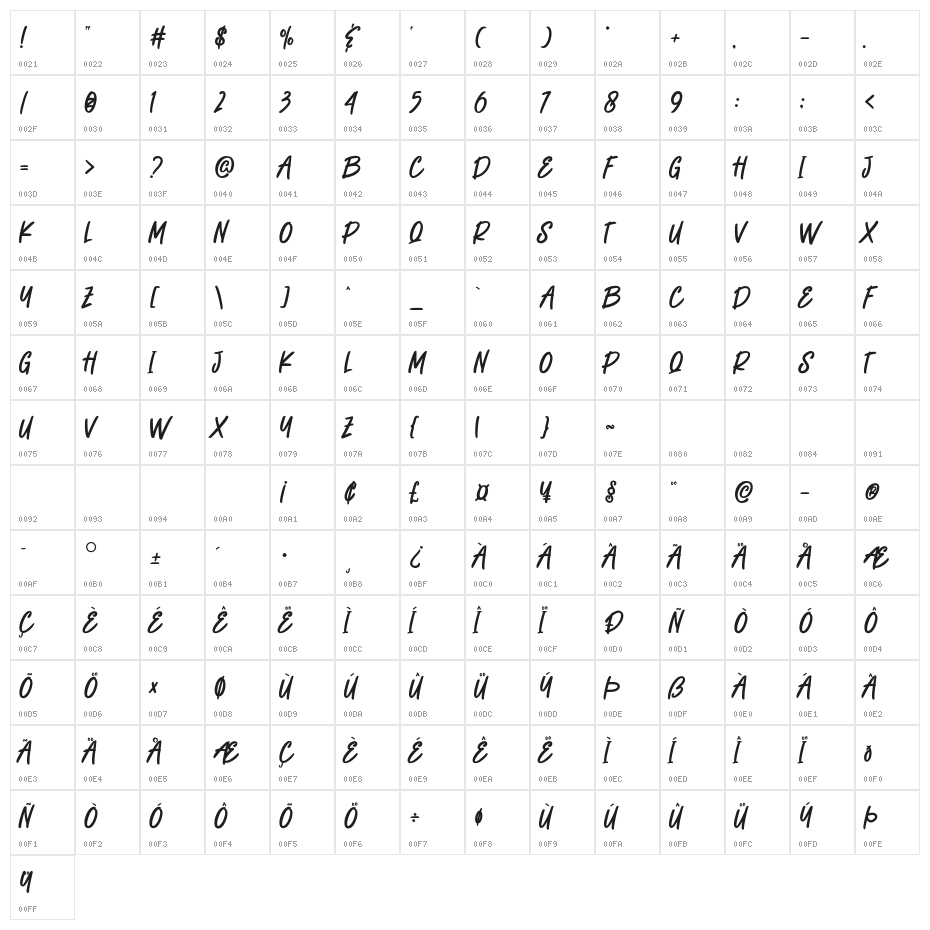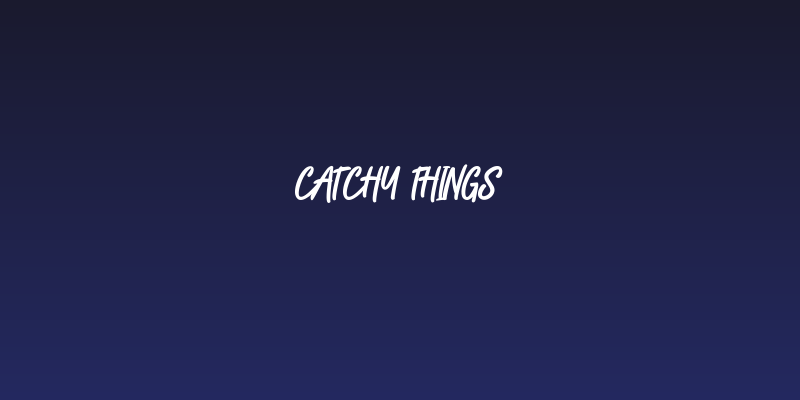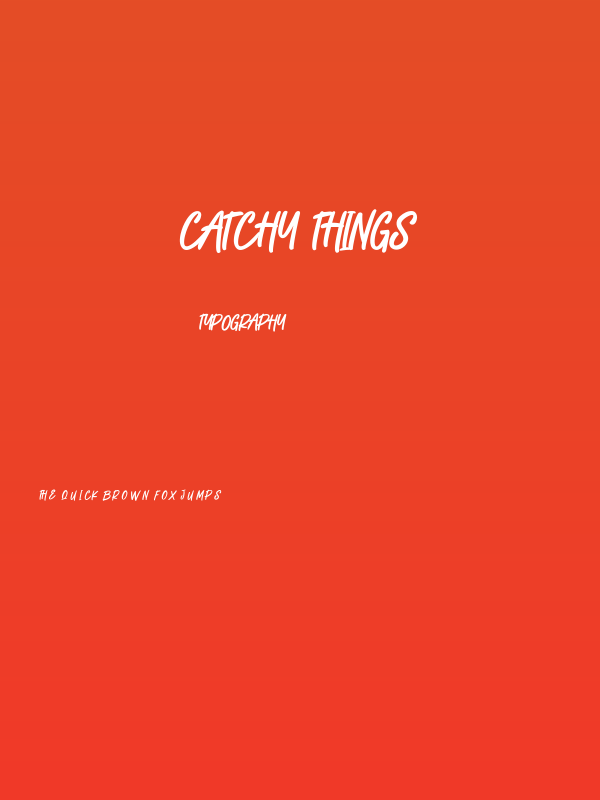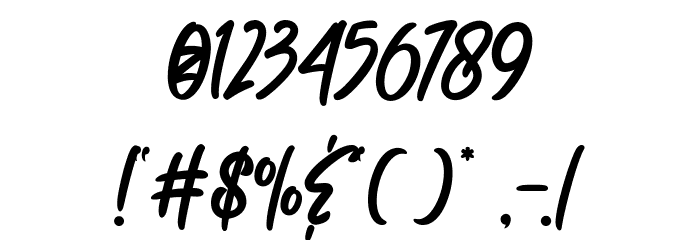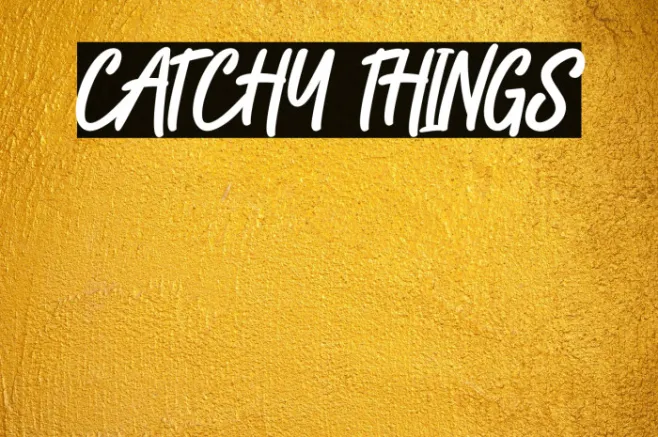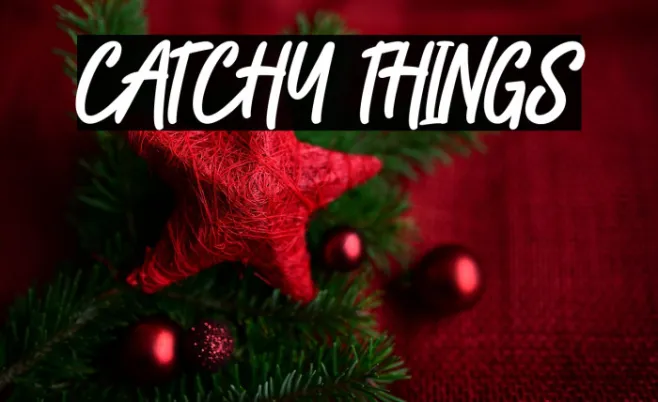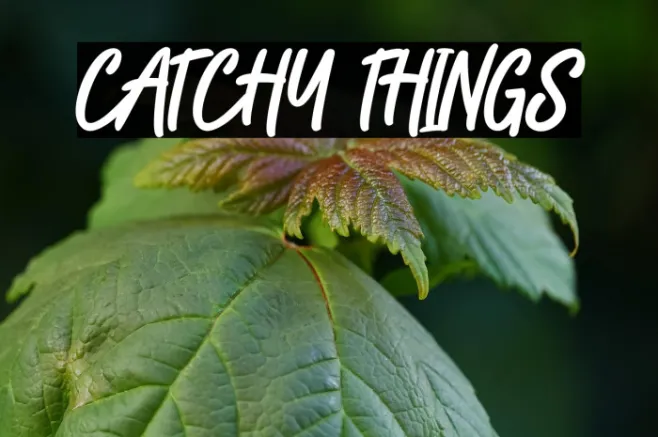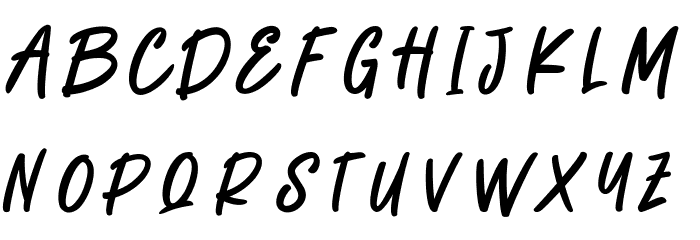
CATCHY THINGS Font
CATCHY THINGS Description
This font features a bold and dynamic script style with a handwritten feel. The uppercase letters are slightly slanted, giving a sense of motion and energy. The lowercase letters maintain a consistent flow, complementing the uppercase with smooth curves and sharp edges. Numbers are clear and distinct, matching the overall aesthetic. Special characters are designed to blend seamlessly with the letters, maintaining the font's cohesive look. The strokes are thick, providing a strong presence, while the spacing between characters is moderately tight, enhancing readability without sacrificing style.
| Proposed Projects | Ideal for branding, logos, posters, and invitations where a personal and energetic touch is desired. |